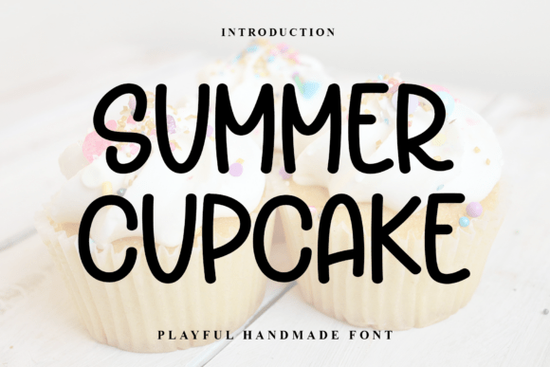
Looking for a handwritten script font that feels elegant without being overly ornate? The Summer Cupcake Font is a fluid, modern script that works beautifully for wedding invitations, event branding, and editorial design. It has just enough personality to stand out while remaining readable and refined.
That combination is hard to find. Most script fonts lean either too casual or too decorative. Summer Cupcake sits in a sweet spot graceful letterforms with smooth connections and a natural flow that looks hand-lettered, not computer-generated.
What Makes This Script Font Different?
A lot of script fonts promise elegance but deliver something that looks stiff or overly stylized. Summer Cupcake avoids that. The strokes have a natural weight variation, which gives the letters a realistic pen-on-paper feel. The connections between letters flow smoothly, so words don't look choppy or disconnected.
This matters especially for wedding stationery and luxury branding, where the typography sets the entire mood. A clunky script can cheapen an otherwise beautiful design. Summer Cupcake keeps things cohesive and polished.
If you've explored other elegant options like the flowing summer love typeface, you'll notice Summer Cupcake takes a slightly more refined approach less playful, more poised.
Where Does Summer Cupcake Font Work Best?
This font isn't meant for body text or technical documents. It's designed for display use where you want type to feel personal and upscale. Here are some practical uses:
- Wedding invitations and save-the-dates The elegant flow pairs well with serif body fonts and minimalist layouts.
- Event branding Rehearsal dinners, bridal showers, boutique pop-ups, or garden parties.
- Editorial design Magazine headers, pull quotes, and signature-style text blocks.
- Social media graphics Instagram quotes, Pinterest pins, and styled product flat lays.
- Photography overlays Watermarks or text overlays on lifestyle and portrait photography.
- Print-on-demand products Mugs, tote bags, and greeting cards that need a personal, handwritten feel.
For bolder projects, you might want to pair it with something with more presence, like the strong big daddy typeface for contrast in headlines.
How Do You Pair Script Fonts With Other Typefaces?
Pairing is where a lot of designers get stuck. A script font like Summer Cupcake needs breathing room. Here are a few approaches that work well:
- Script + clean sans-serif Use Summer Cupcake for headlines and a simple sans-serif like Montserrat or Open Sans for body copy. This keeps the layout balanced.
- Script + classic serif Pair it with a serif like Playfair Display or Cormorant for a more editorial, sophisticated feel.
- Script + slab serif For a mix of elegance and structure, combine it with a slab serif. The refined staying script offers another option if you want variety in your collection.
The key rule: don't pair two scripts together unless one is clearly dominant. Two competing script fonts create visual noise and make text hard to read.
Who Should Download This Font?
Summer Cupcake is a solid choice if you:
- Design wedding stationery or event materials for clients
- Run a print-on-demand shop and need elegant script options
- Create social media content for lifestyle, fashion, or beauty brands
- Work on editorial layouts and need a signature-style typeface
- Are a crafter who makes greeting cards, gift tags, or party decor
It's less suited for technical documents, UI design, or long-form reading but that's not what it's built for. It's meant to add a personal, handcrafted touch to visual projects.
Quick Checklist Before You Use It
- ✅ Pair it with a clean, readable font for body text
- ✅ Use it at larger sizes script fonts lose legibility when scaled down too small
- ✅ Test it in your design software before committing to a final layout
Start with one project a simple wedding card or a styled social media post and see how it fits into your workflow. You'll know pretty quickly whether it belongs in your regular rotation.